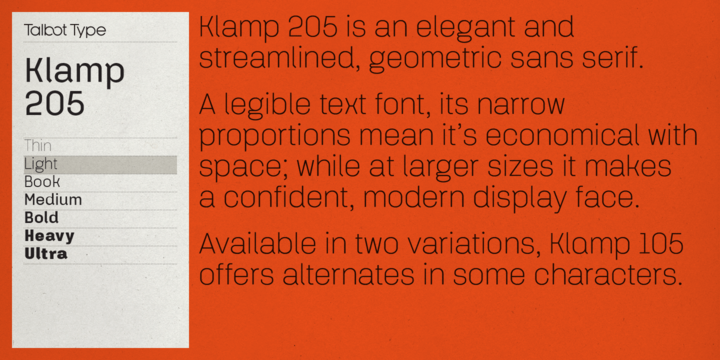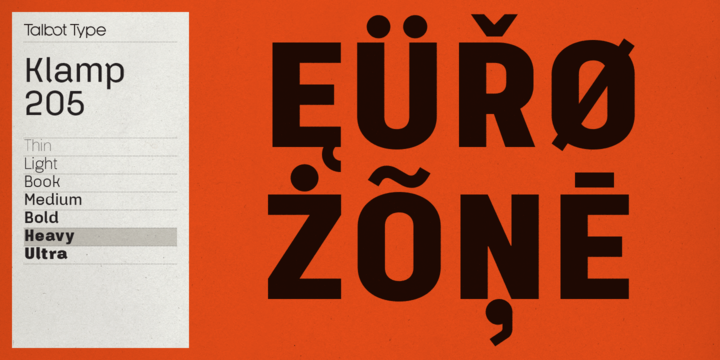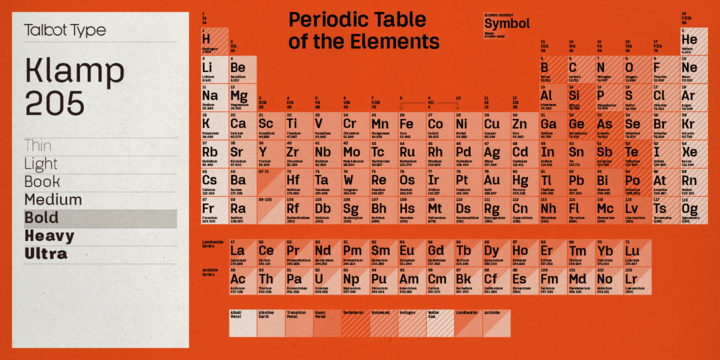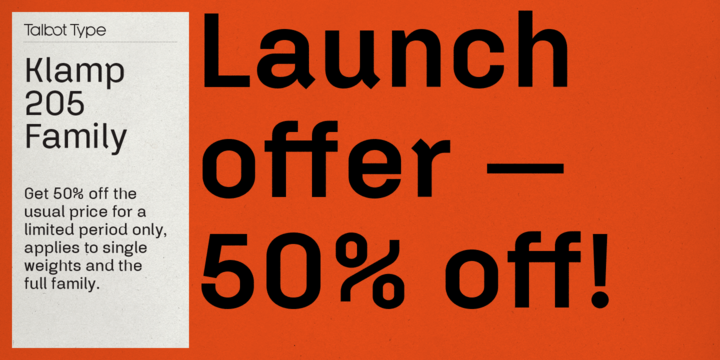
Talbot Type Klamp 205 is an elegant and streamlined, geometric sans-serif. A legible text font, its narrow proportions mean its economical with space; while at larger sizes it makes a confident, modern display face.
Klamp 205 is available in a comprehensive family of seven weights, featuring an extended character set to include old style numerals, as well as accented characters for Central European languages.
It is also available with some character variations as Klamp 105, most notably featuring a more modern, single-storey lower case a and g.